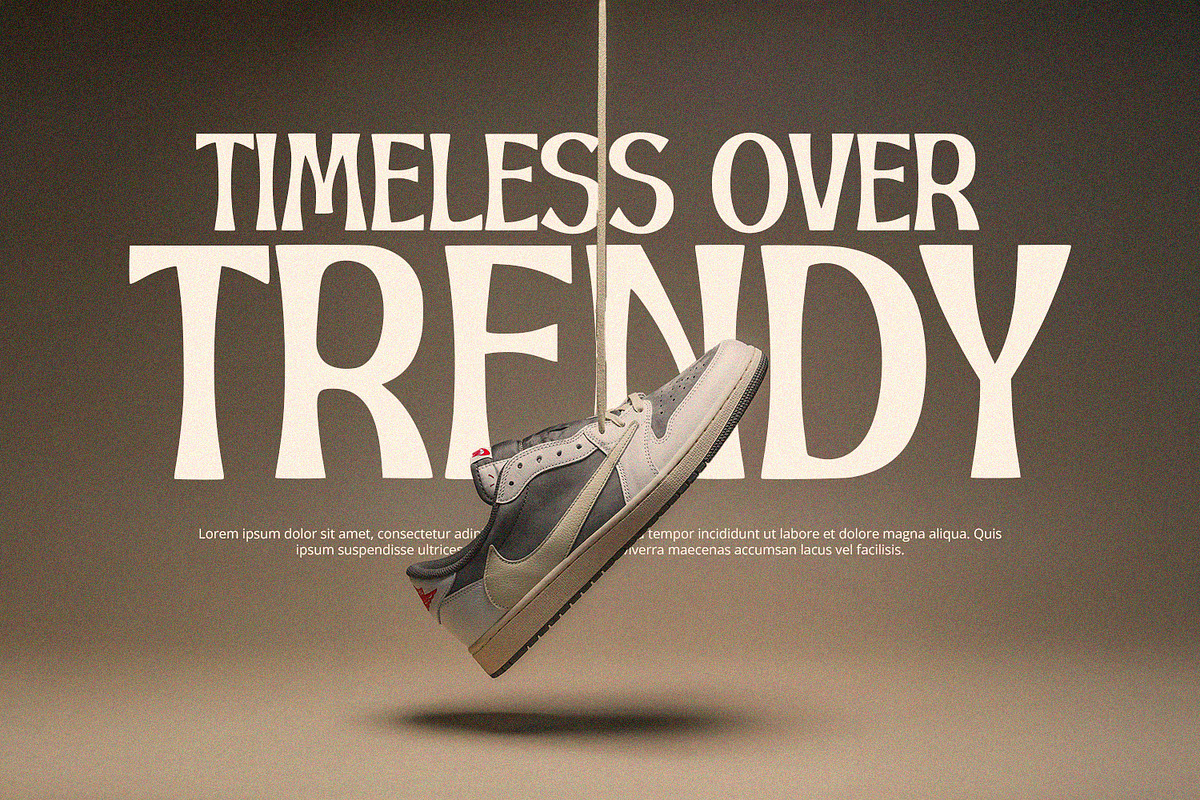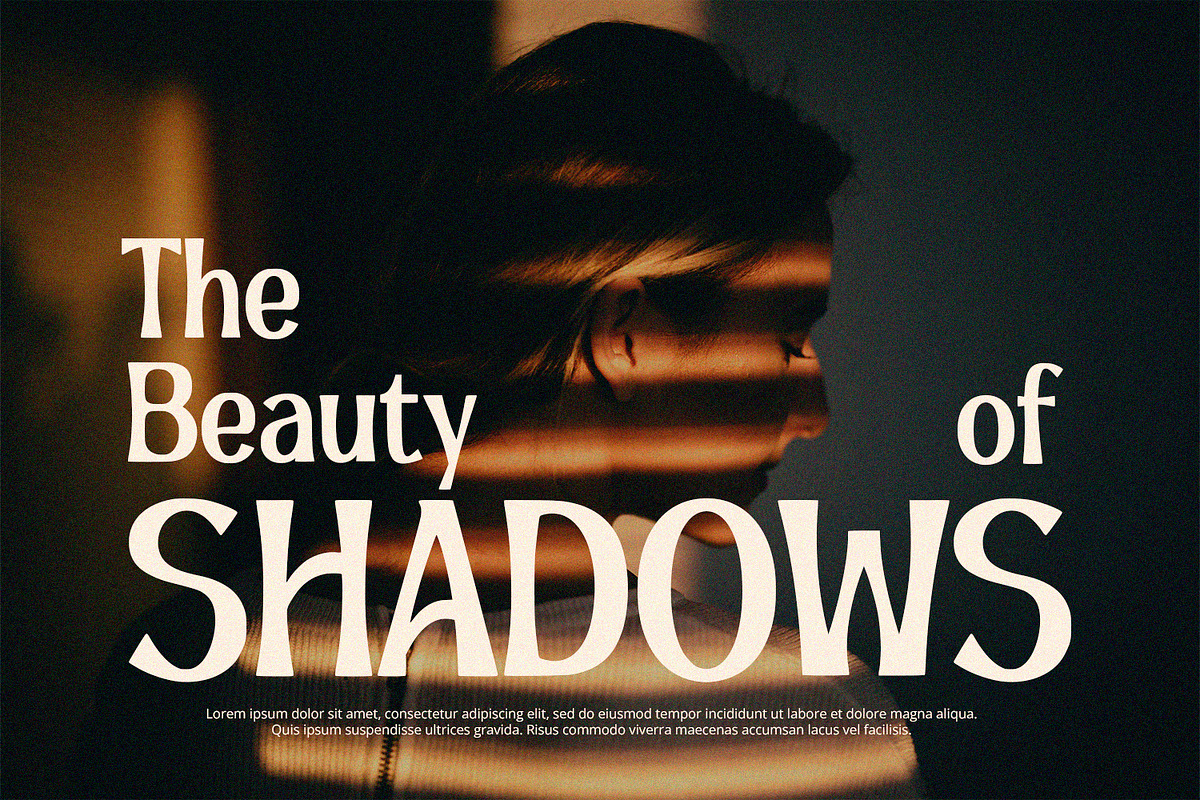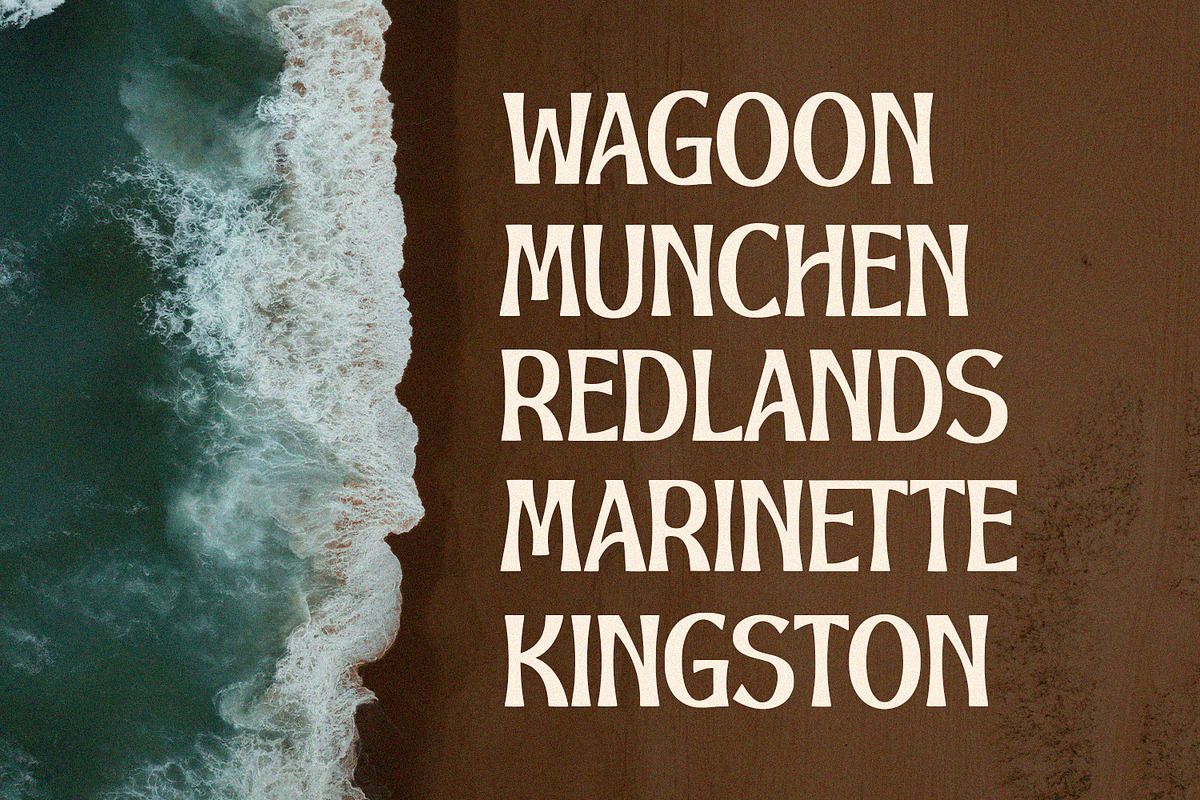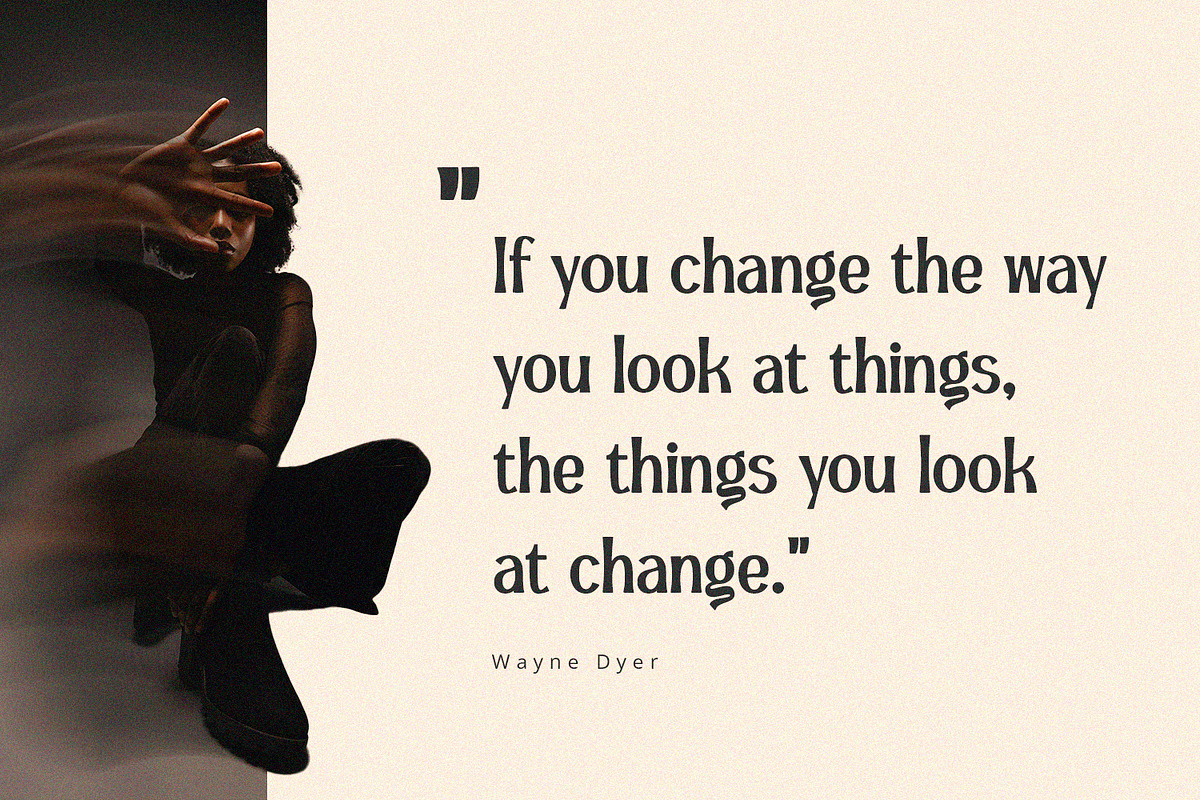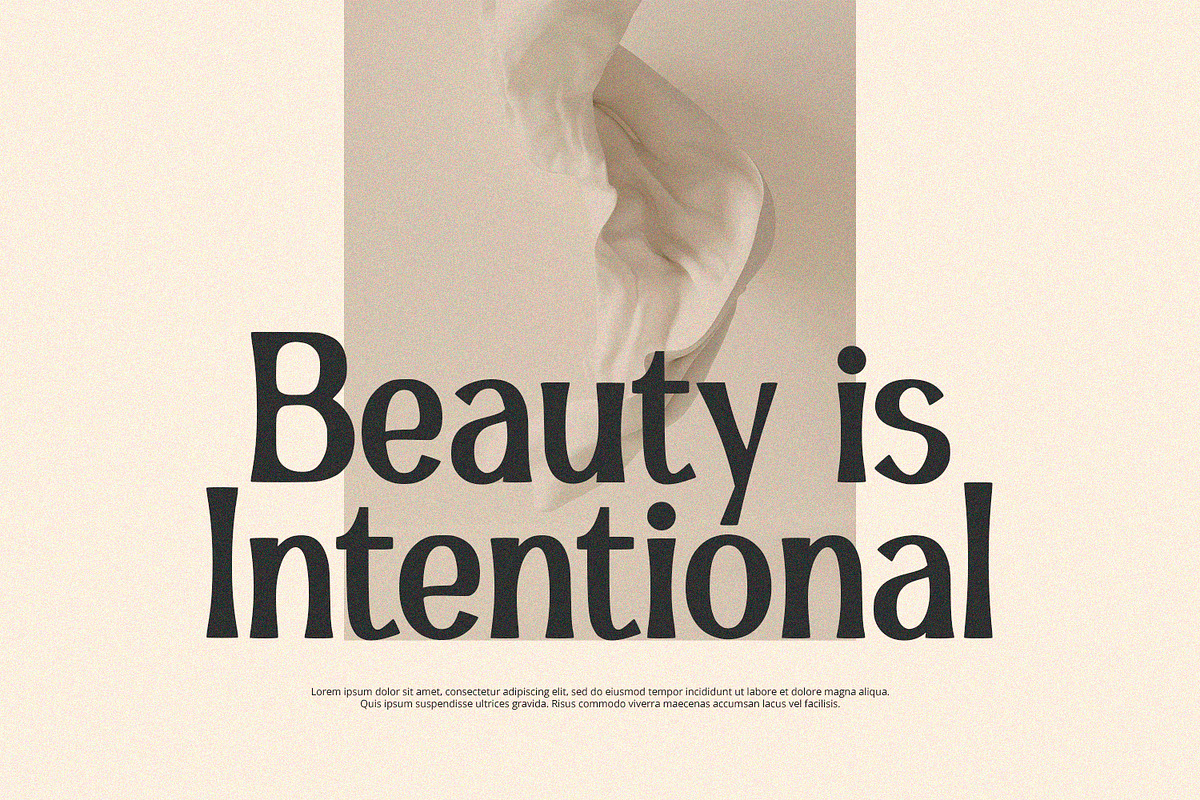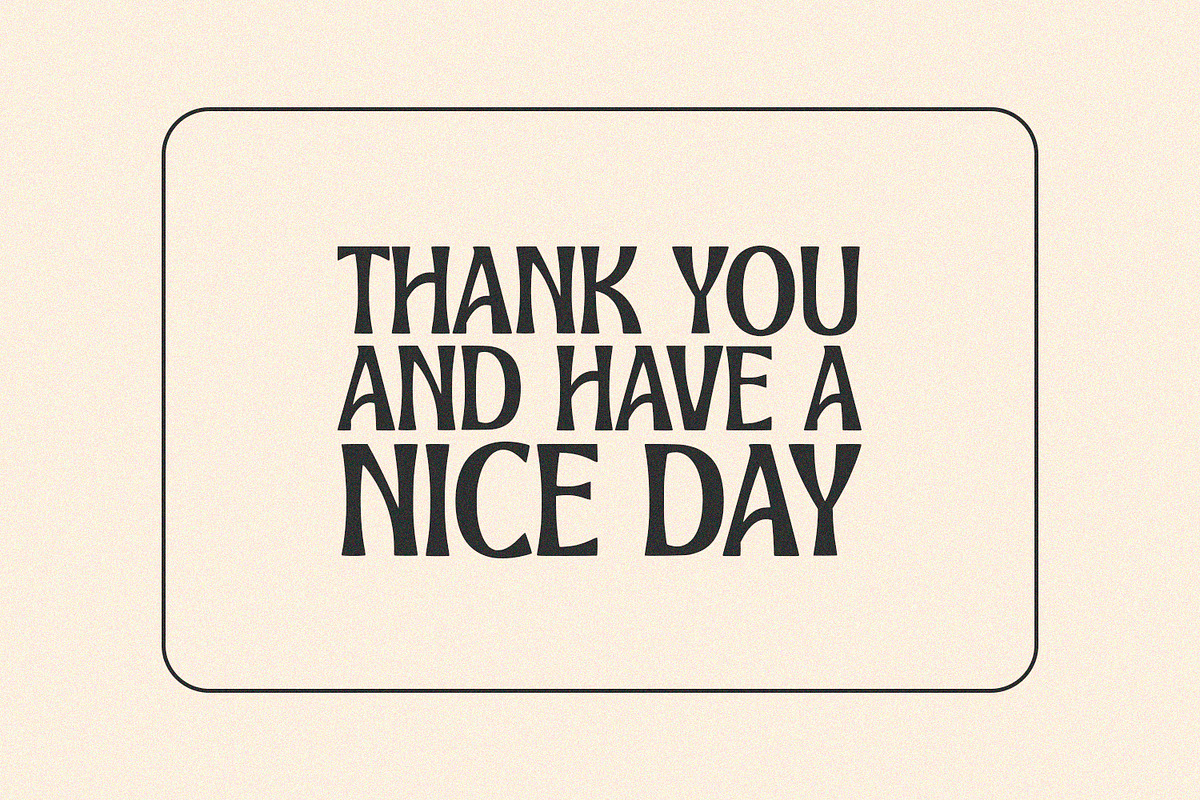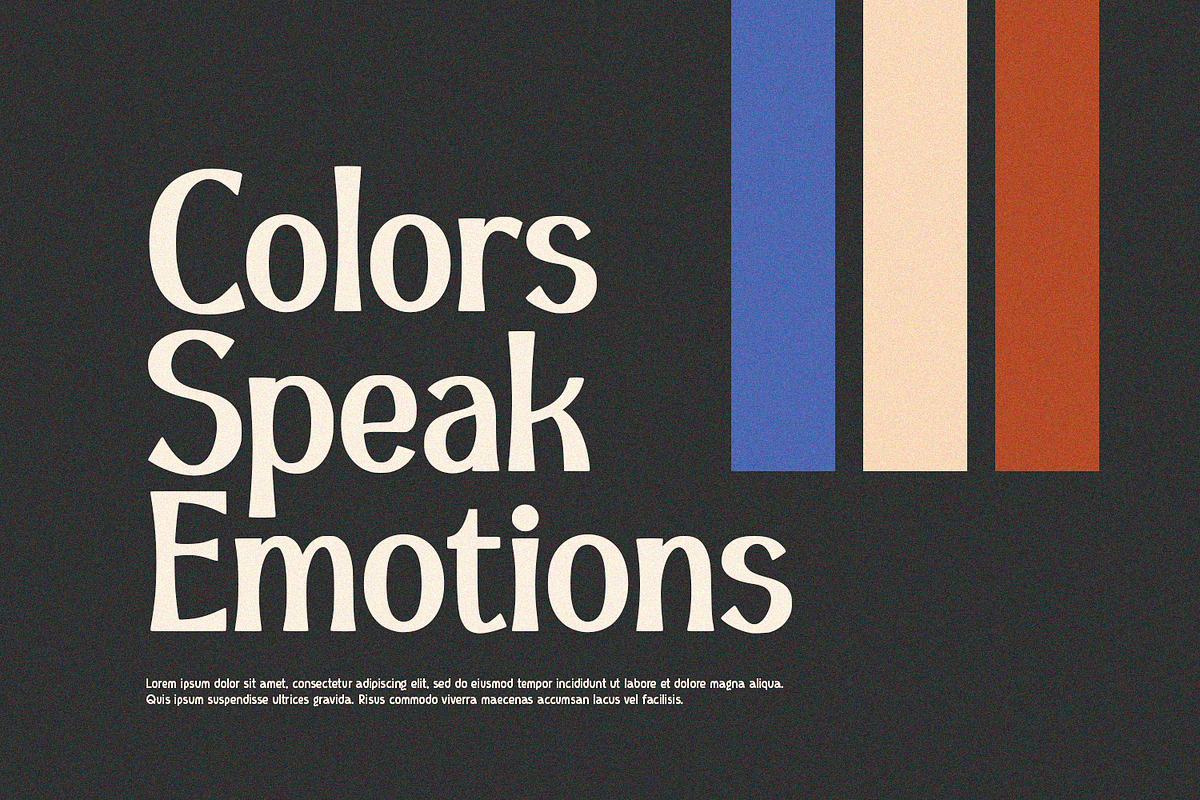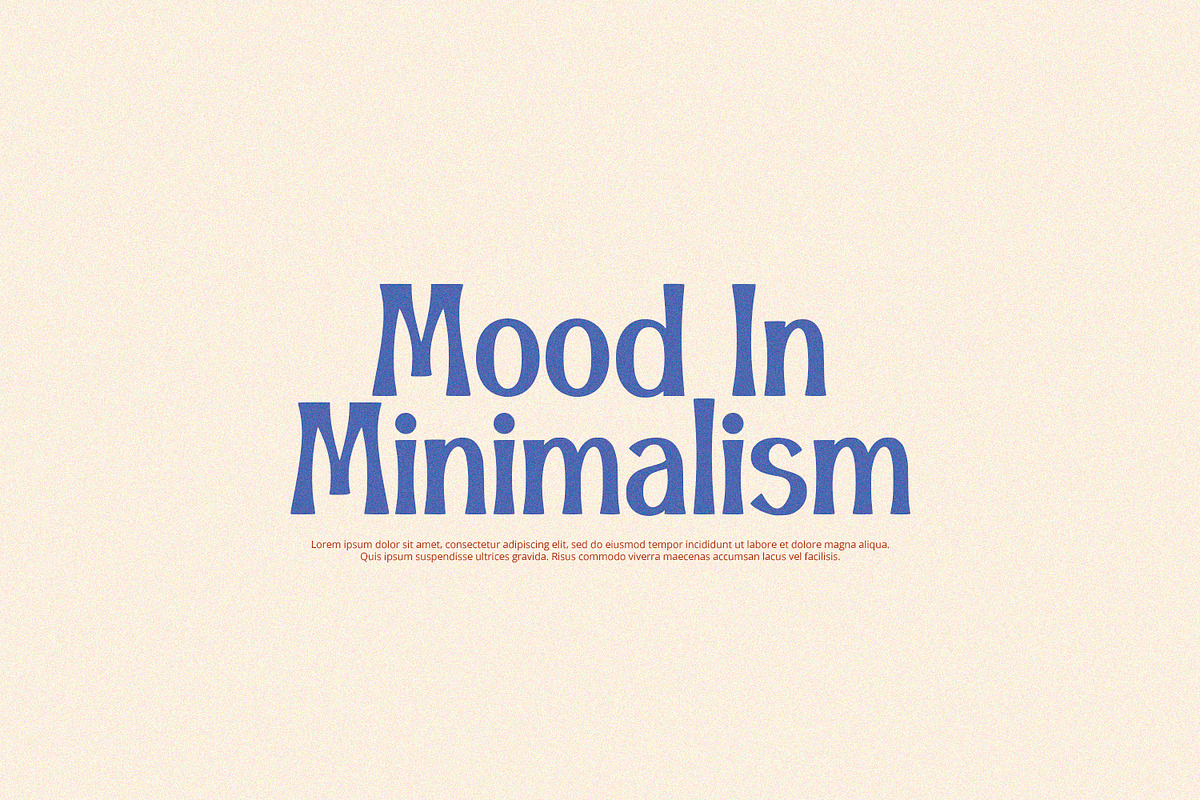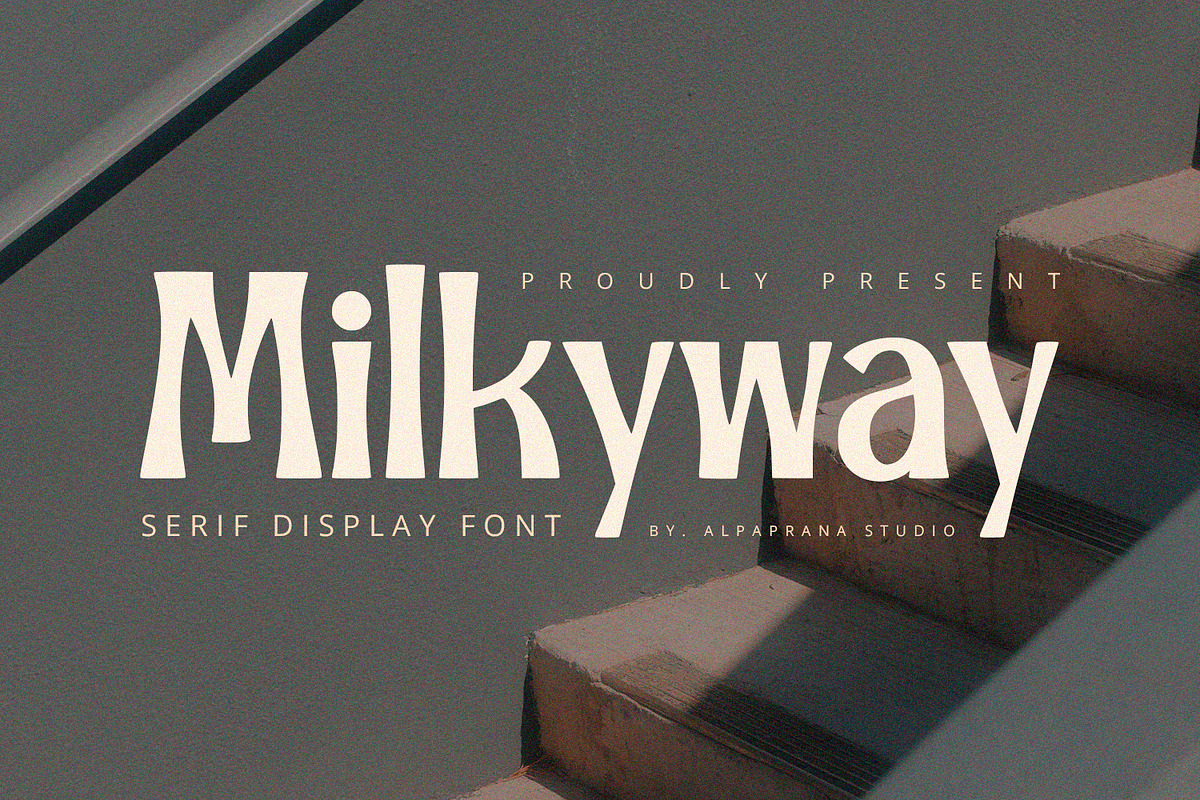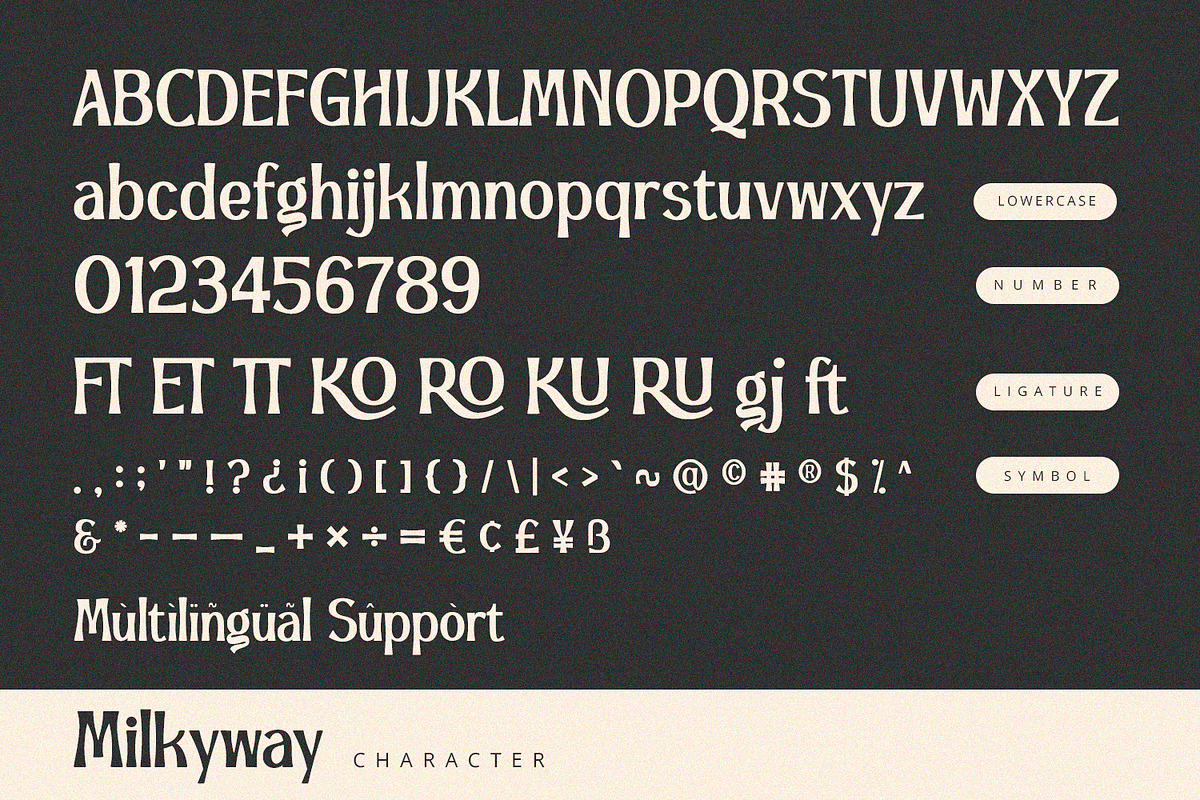
Milkyway - Serif Display
Milkyway is serif display font with modern feels. It will be perfectly used for Branding, Logo Design, Lettering, Logotype, Clothing, Poster, magazine, packaging, posters, shopping bags, t-shirts, book covers, photography, special events and other design project.